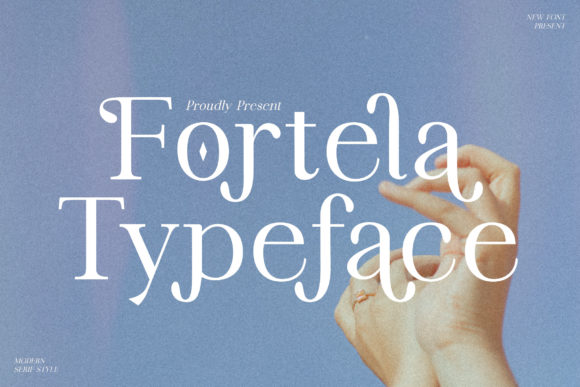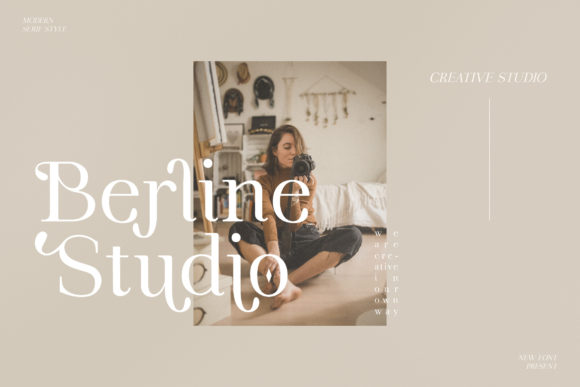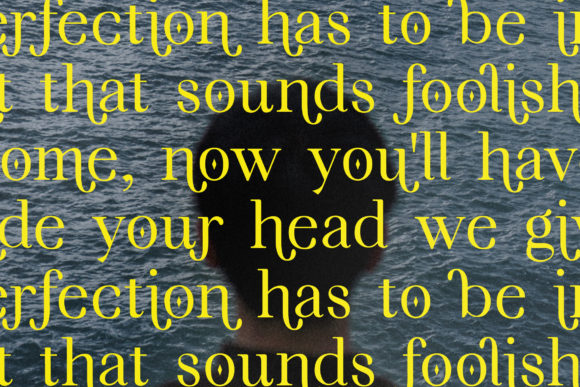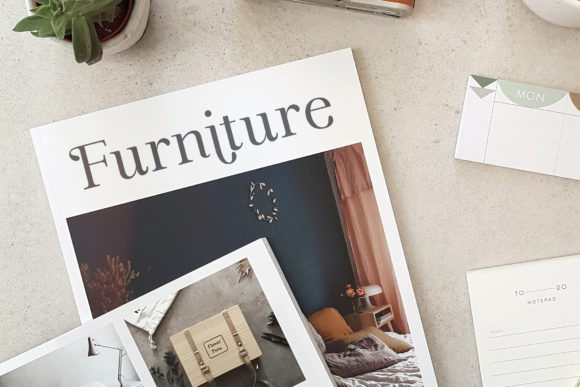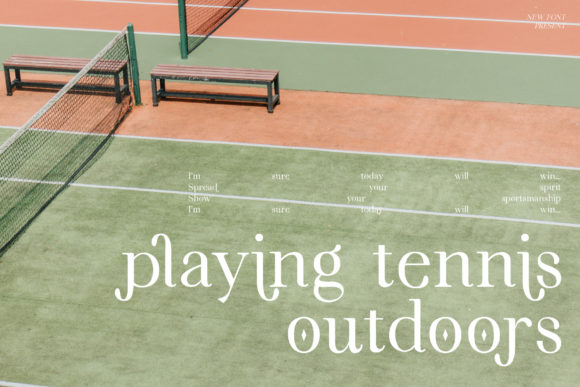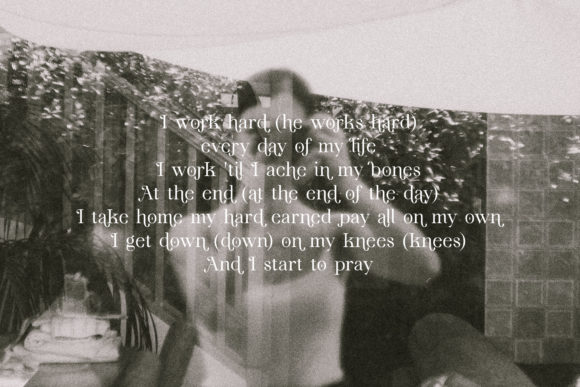
Introducing Fortela Typeface: A Timeless Serif Font for Elegant Designs
In the world of typography, a well-crafted font can elevate a design from ordinary to extraordinary. For designers and crafters seeking a typeface that exudes elegance and sophistication, look no further than Fortela Typeface. This modern and classic serif font boasts a unique style that is both timeless and contemporary, making it perfect for a wide range of applications.
A Font for Luxury and Elegance
Fortela Typeface is designed to bring a touch of luxury to any design project. Its classic serif lines evoke a sense of tradition and heritage, while its modern aesthetic ensures it remains fresh and relevant. This font is ideal for creating elegant logos, sophisticated book or movie titles, and stylish fashion brand identities. Whether you’re working on a high-end fashion magazine, a luxury product catalog, or a stylish clothing brand, Fortela Typeface is the perfect choice.
One of the standout features of Fortela Typeface is its versatility. This font can be used for a wide range of design projects, including:
- Elegant logos and branding
- Book and movie titles
- Fashion brand identities
- Magazine and newspaper design
- Clothing and apparel branding
- Lettering and quote design
With Fortela Typeface, you can create stunning designs that are sure to impress. Its flexibility and range make it an essential addition to any designer’s toolkit.
- Alternates and swashes
- Ligatures and ornaments
- Stylistic sets and glyph variations
What Sets Fortela Typeface Apart
So, what makes Fortela Typeface stand out from the crowd? Here are just a few key features that set it apart:
- Unique and modern aesthetic
- Classic serif lines with a contemporary twist
- Extensive character set for maximum flexibility
- Perfect for luxury and elegant designs
Whether you’re a seasoned designer or a crafty DIY enthusiast, Fortela Typeface is an excellent addition to your design arsenal.
In conclusion, Fortela Typeface is a world-class serif font that offers a perfect blend of modernity and classic elegance. Its versatility, flexibility, and PUA encoding make it an essential tool for designers and crafters seeking to create stunning, high-end designs. With Fortela Typeface, you can elevate your designs to new heights and create something truly special.